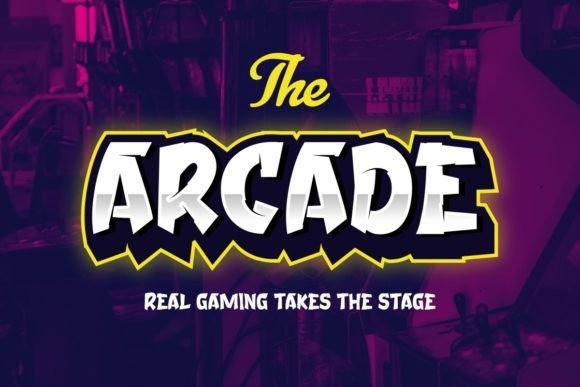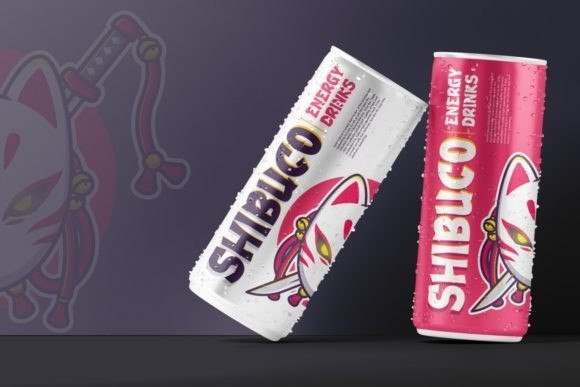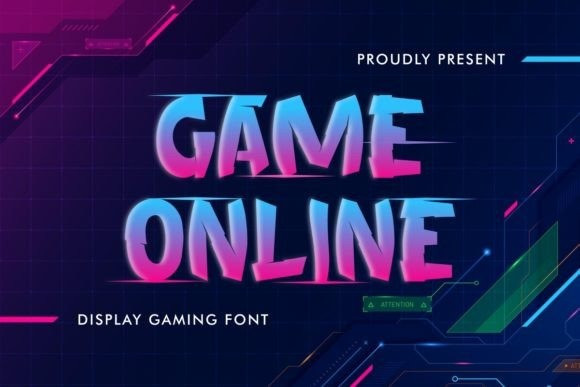
Game Online Font
Game Online Font is a fun display font with a gaming style. This font has a unique shape that adds a cool look to your amazing projects. It will be suitable for many industries like cartoons, comics, energy drinks, fights, games, movies, music, publishing, printing, sports, and many more!